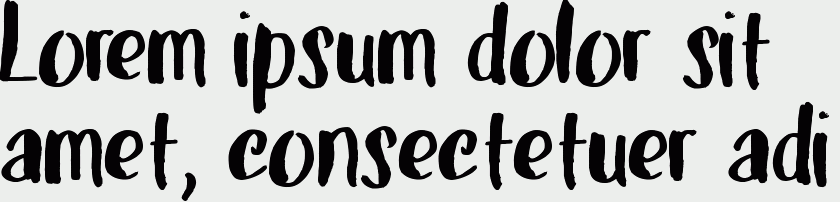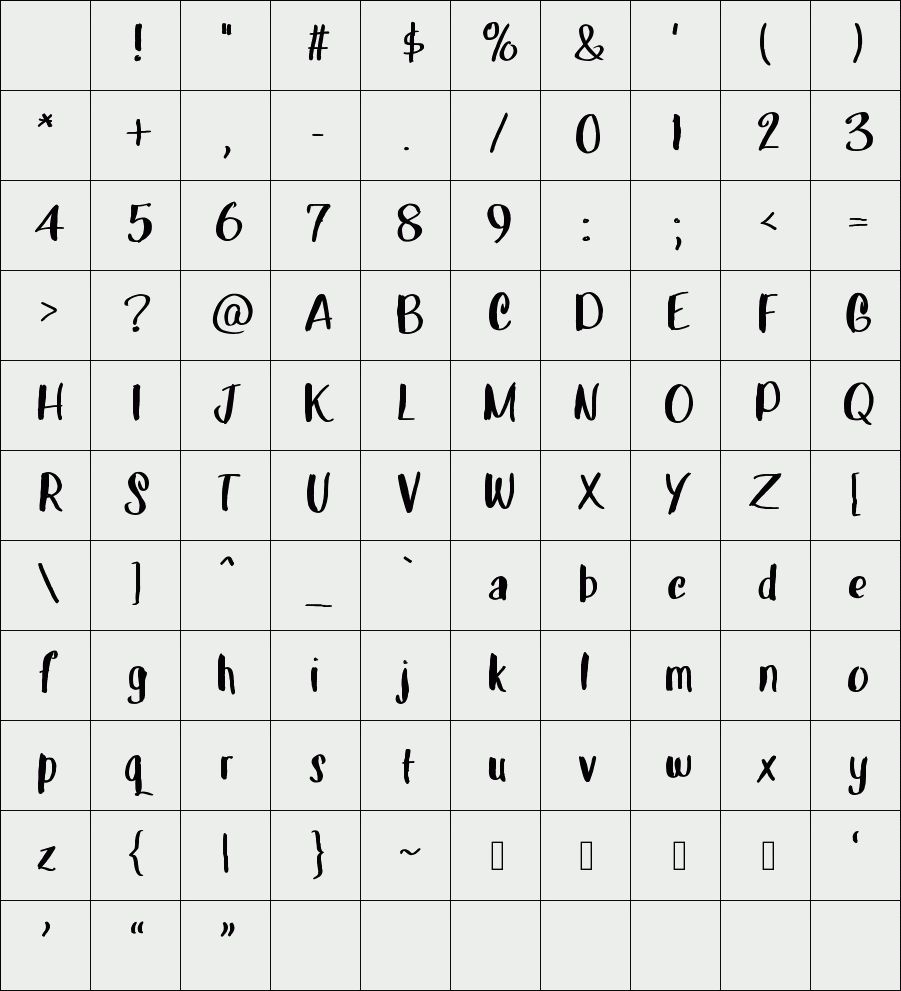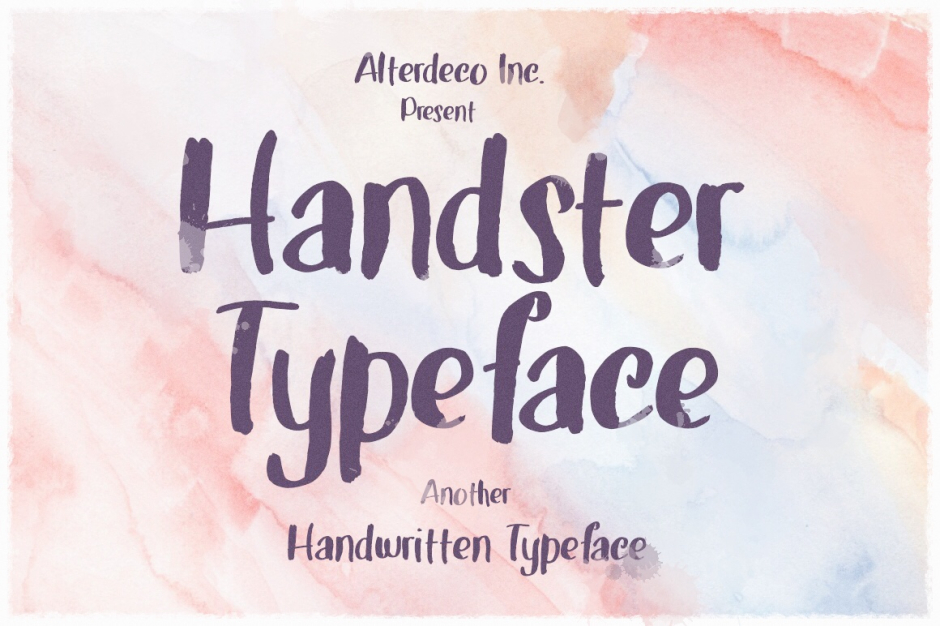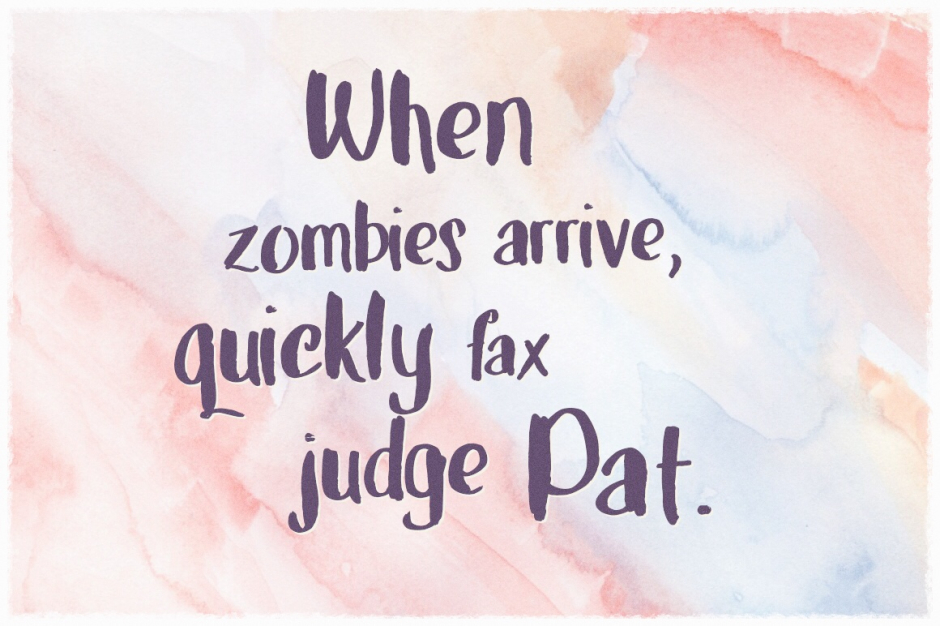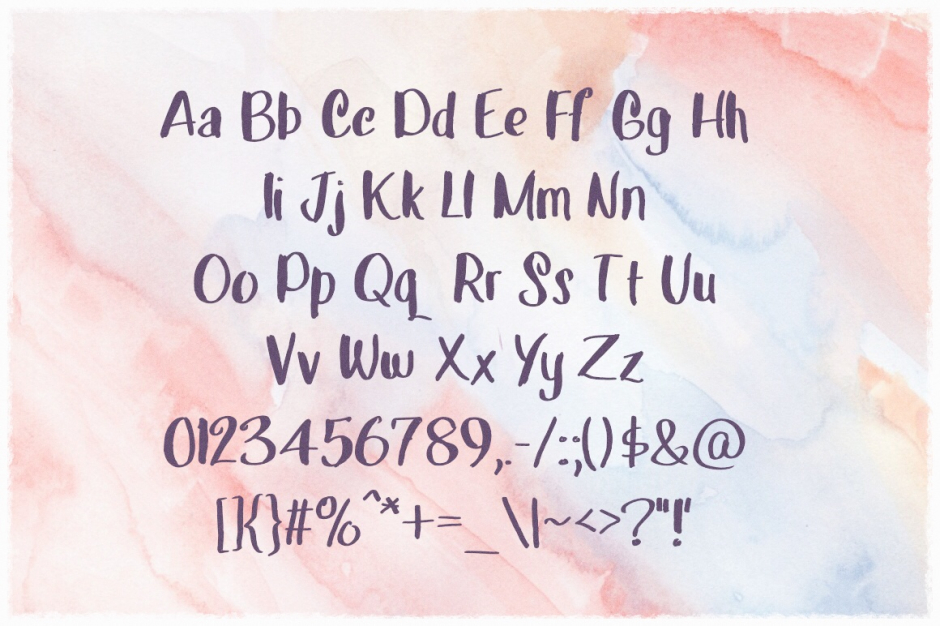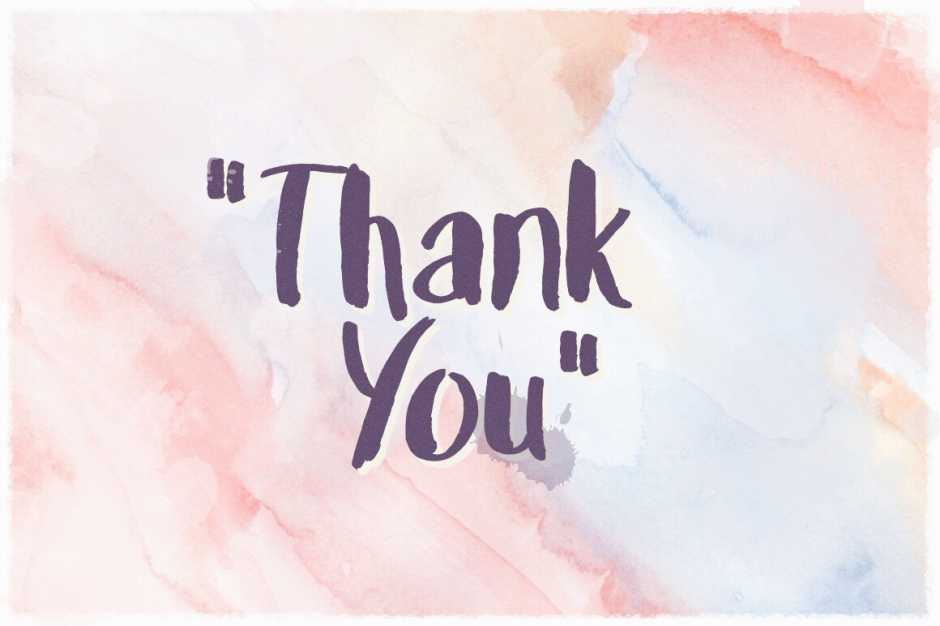
Handster Typeface
Handster Typeface is a handwritten font crafted with love. This font is so perfectly imperfect font to put a personal feel into anything you’re working on.